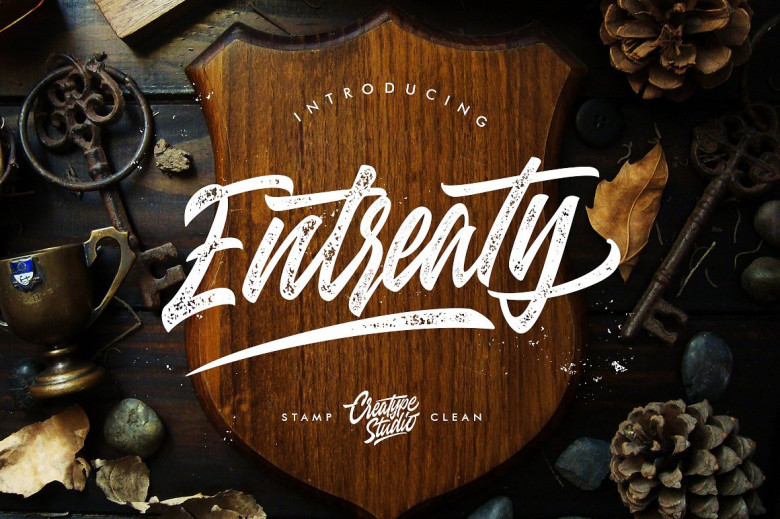
Entreaty Script Font
Still a product of Creatype Studio Co. A professional designer from Depok, Indonesia. We know a lot of his products, and today are: Entreaty – is a bold modern handlettering script with strong style and dramatic movement. It’s allowing you to create beautiful hand-made typography in an instant. Entreaty is to use for any kind of design such as branding projects, logo, wedding designs, social media posts, advertisements, product packaging, product designs, label, photography, watermark, invitation, stationery and any projects that need handwriting taste.